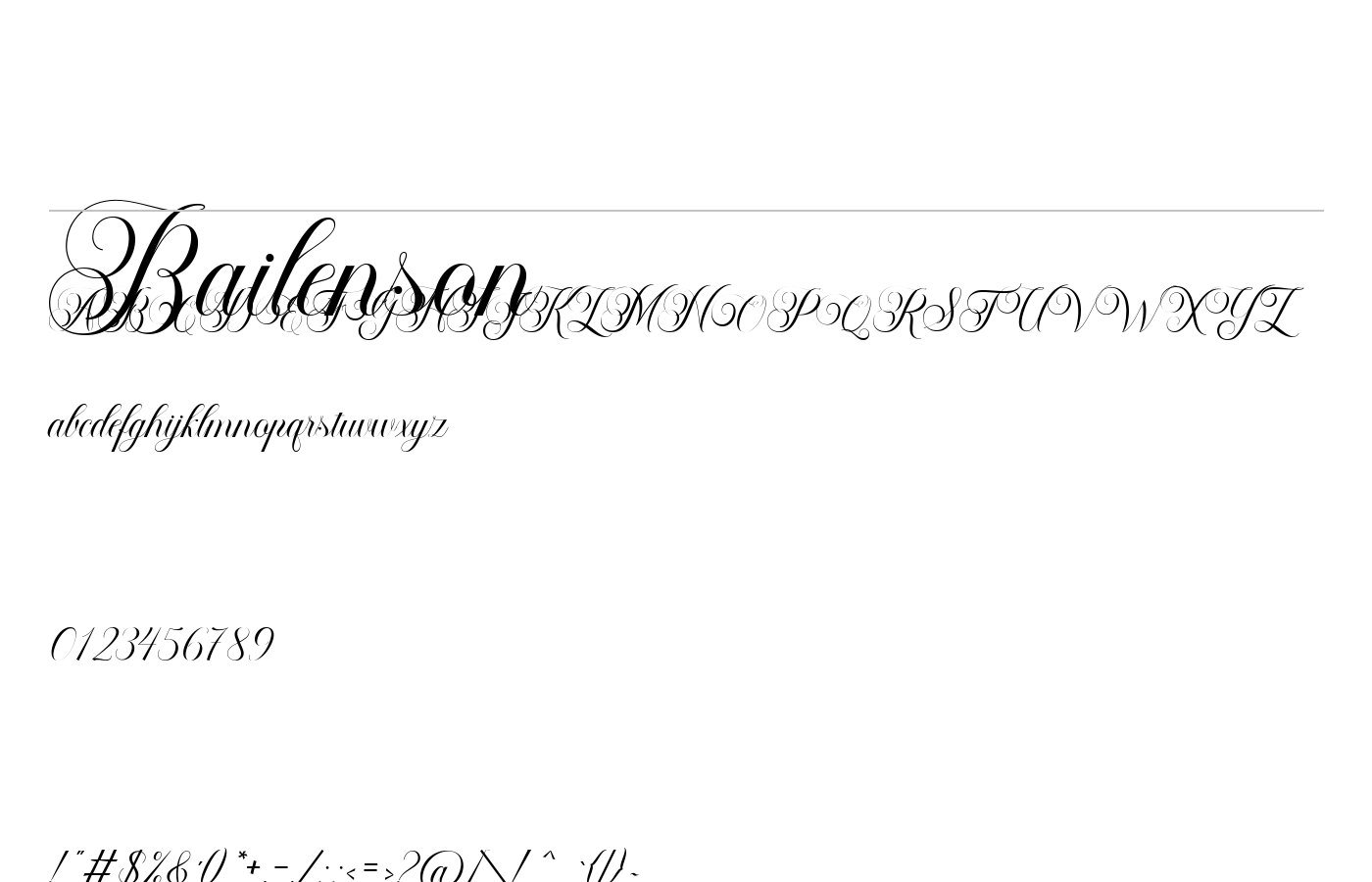
Bailenson is an elegant script font characterized by its delicate, flowing strokes and intricate swashes, giving it a refined and sophisticated appearance. With its high contrast and graceful curves, it evokes a classic, luxurious feel ideal for invitations, branding, and editorial designs that seek a touch of timeless elegance. This font shines best in decorative, headline, or logo use where its ornamental details can truly stand out.
Bailenson Font
About Bailenson Font
| Designer | Haikal Juanda |